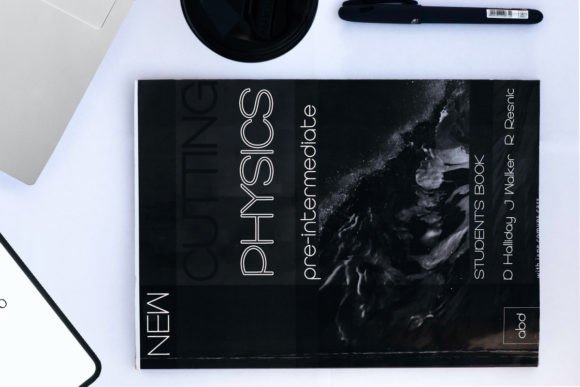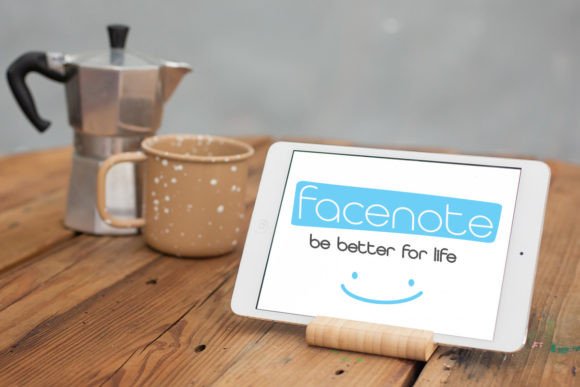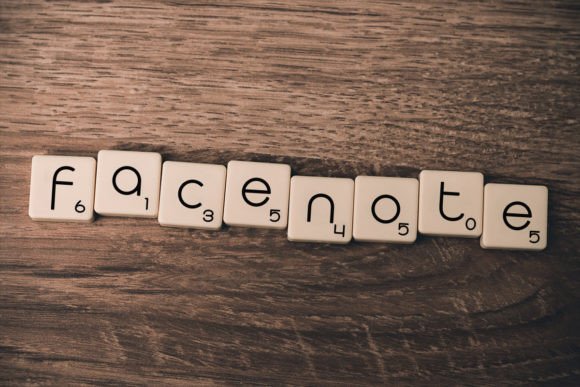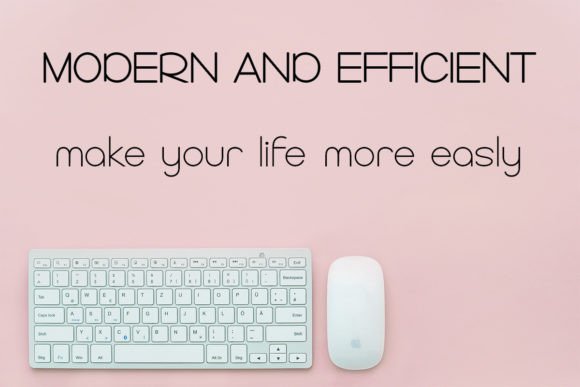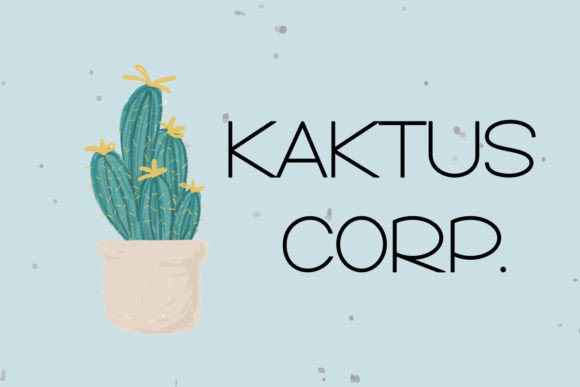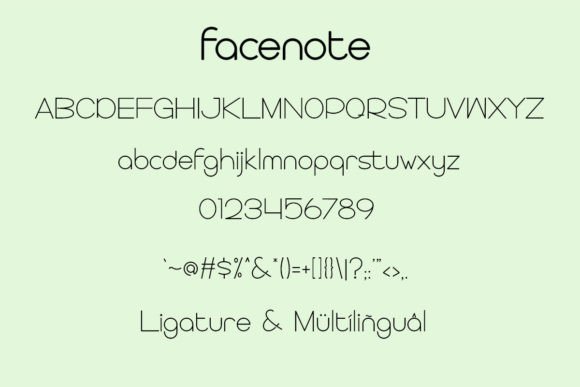
Introducing Facenote Font: The Ultimate Sans Serif for Creative Projects
Are you tired of using the same old fonts for your design projects? Look no further than Facenote Font, a minimalist and neat sans serif font that’s perfect for adding a touch of modernity to your creative ideas. With its clean lines and simple design, Facenote Font is incredibly versatile and can be matched to a wide range of projects, making it a must-have for designers and crafters alike.
The Benefits of Using Facenote Font
So, what makes Facenote Font so special? Here are just a few benefits of using this amazing font:
• Versatility: Facenote Font is incredibly versatile and can be used for a wide range of projects, from branding and advertising to packaging and digital design.
• Readability: The clean and simple design of Facenote Font makes it easy to read, even at small sizes, making it perfect for body text and captions.
• Modernity: Facenote Font has a distinctly modern feel, making it perfect for designers and crafters who want to add a touch of contemporary style to their projects.
• Legibility: The font’s simple design and clear lines make it highly legible, even in small sizes or at a distance.
How to Use Facenote Font in Your Design Projects
Facenote Font is incredibly easy to use and can be incorporated into a wide range of design projects. Here are a few ideas to get you started:
• Branding and Identity: Use Facenote Font as a logo font or for branding and identity projects, such as business cards and letterheads.
• Digital Design: Facenote Font is perfect for digital design projects, such as website design, social media graphics, and mobile apps.
• Packaging: Use Facenote Font for packaging design, such as labels, tags, and product packaging.
• Advertising: Facenote Font is a great choice for advertising projects, such as print ads, billboards, and outdoor signage.
Why Facenote Font is Perfect for Crafters
Facenote Font is not just for designers – it’s also perfect for crafters who want to add a professional touch to their projects. Here are a few ways crafters can use Facenote Font:
• Paper Crafting: Use Facenote Font to create beautiful paper crafts, such as cards, invitations, and scrapbook pages.
• DIY Projects: Facenote Font is perfect for DIY projects, such as handmade signs, labels, and decorations.
• Journals and Planners: Use Facenote Font to create beautiful journals and planners that are both functional and stylish.
Tips for Getting the Most Out of Facenote Font
Here are a few tips for getting the most out of Facenote Font:
• Experiment with Different Sizes: Facenote Font looks great at a wide range of sizes, from small captions to large headlines.
• Pair it with Other Fonts: Facenote Font pairs well with a wide range of other fonts, so don’t be afraid to experiment with different combinations.
• Use it Consistently: Use Facenote Font consistently throughout your design project to create a cohesive look.
In conclusion, Facenote Font is a versatile and modern sans serif font that’s perfect for designers and crafters alike. With its clean lines, simple design, and high legibility, Facenote Font is a great choice for a wide range of projects, from branding and advertising to packaging and digital design. So why not give Facenote Font a try and see how it can elevate your design projects to the next level?